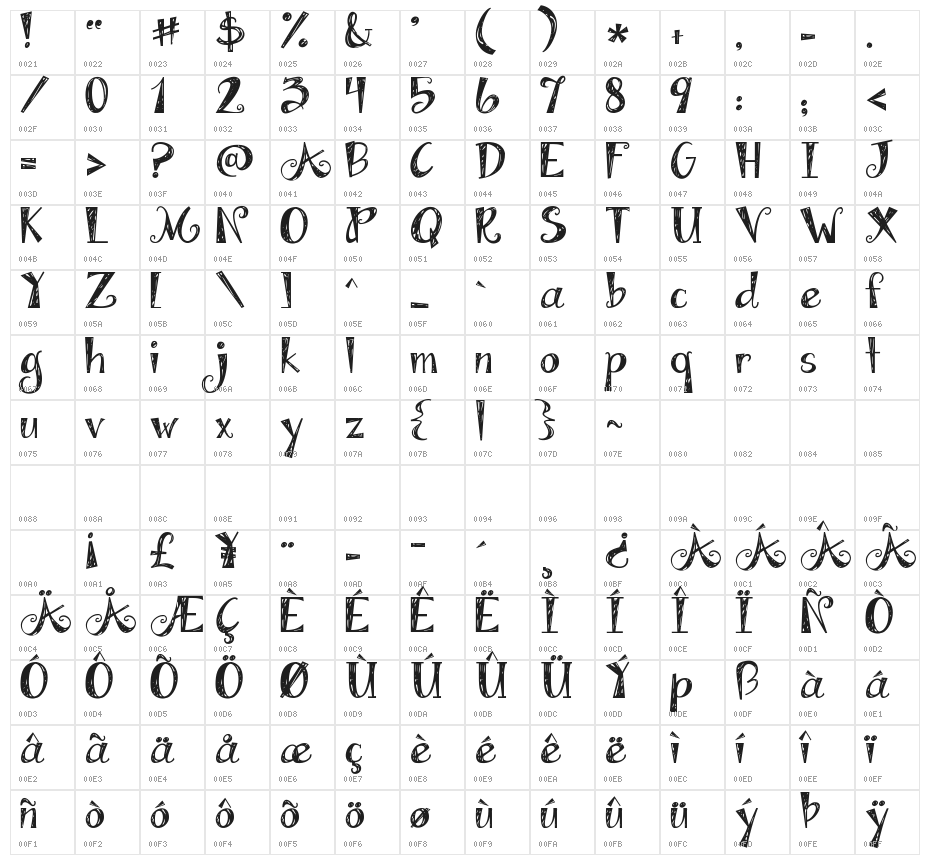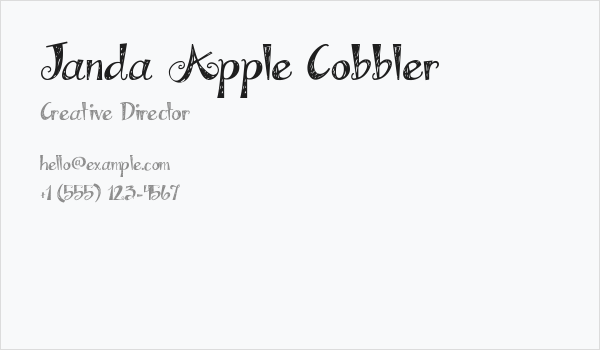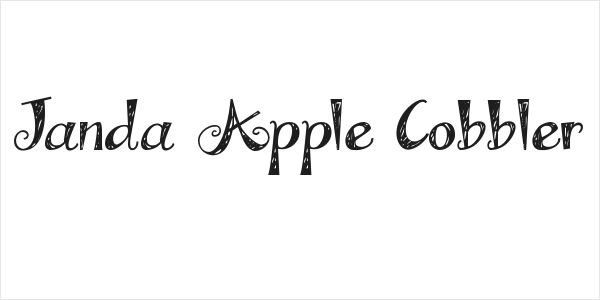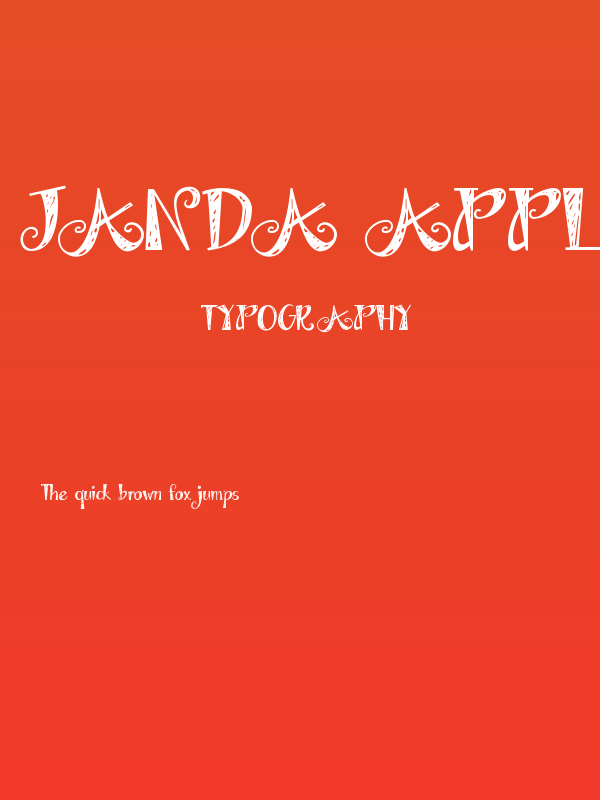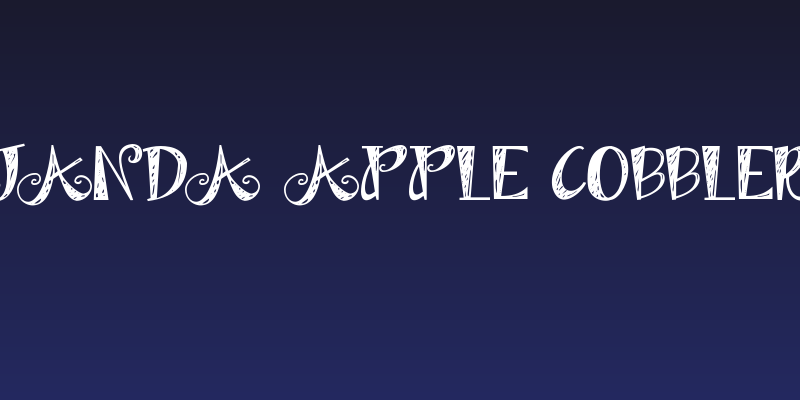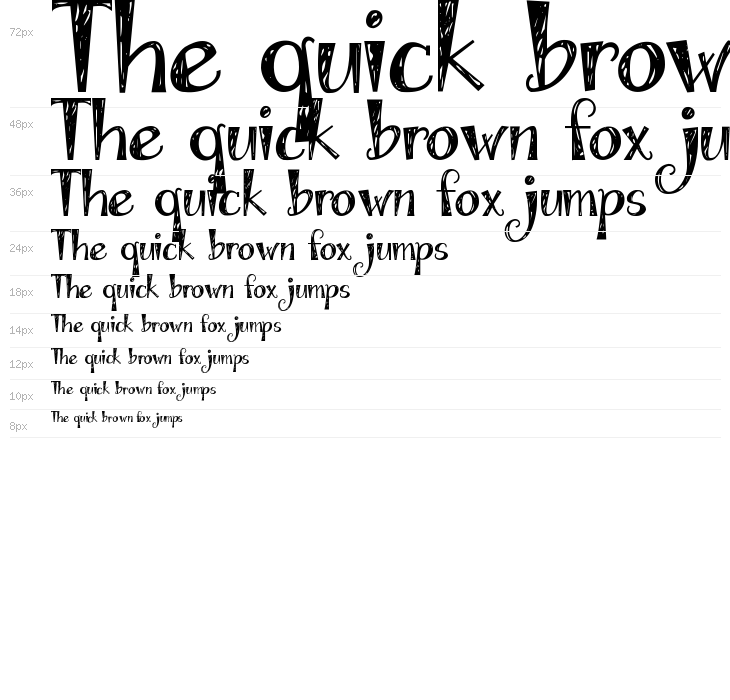
Janda Apple Cobbler Font
Janda Apple Cobbler Description
This font features a whimsical and playful design, characterized by its curly and decorative elements. The uppercase letters are bold and expressive, with unique swirls and loops that add a sense of fun and creativity. The lowercase letters maintain this playful style, with a slightly more compact form. Numbers and special characters are equally decorative, ensuring a cohesive look across all elements. The font's hand-drawn appearance gives it a personal and artistic touch, making it ideal for projects that require a friendly and approachable aesthetic.
| Overall Style | Playful, Artistic |
| Proposed Projects | Ideal for children's books, greeting cards, playful branding, and creative invitations. |